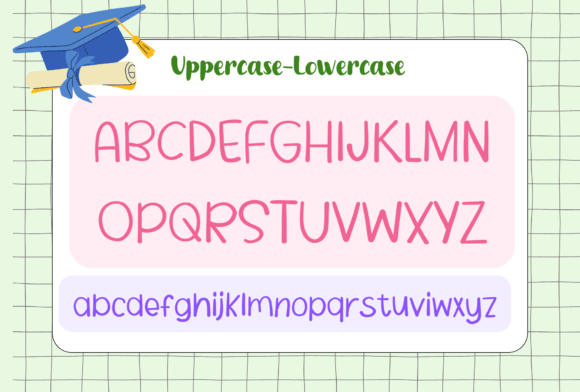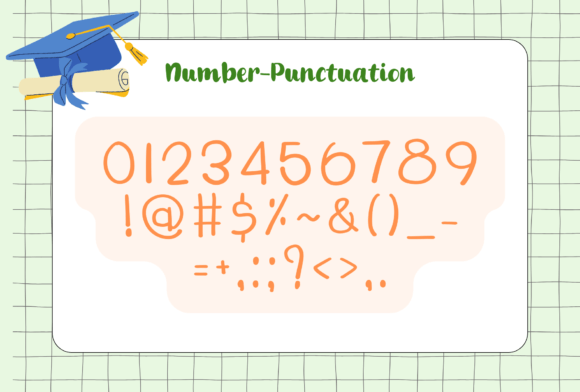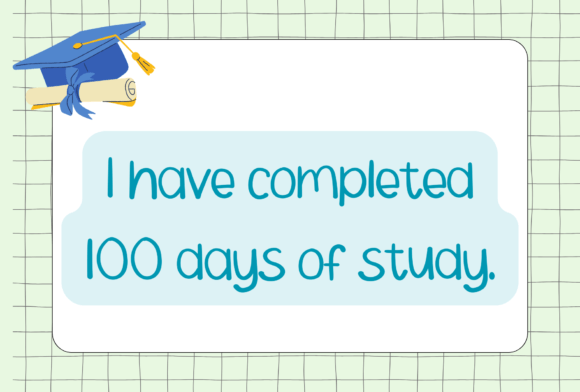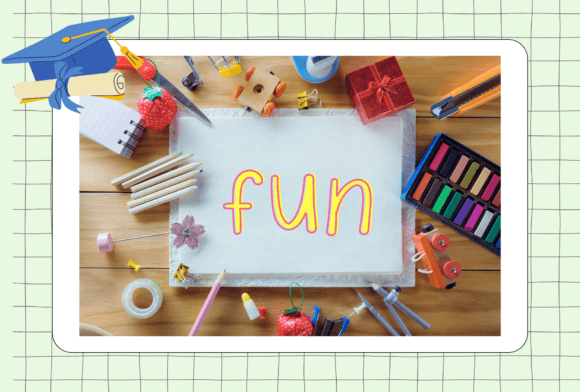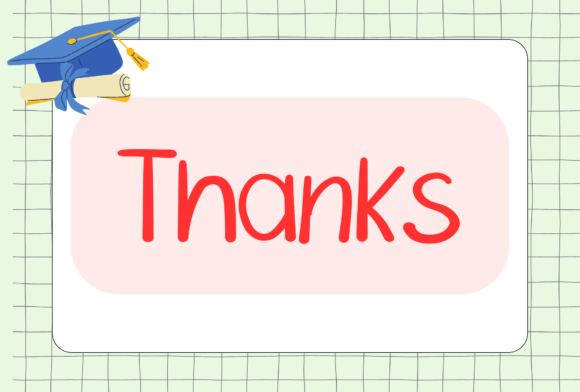
The 100 Days of School Font: A Designer’s Dream Come True
I’ll never forget the time I was working on a project for a client who needed a font that exuded modern elegance and sophistication. I had been searching for what felt like hours, but nothing seemed quite right. That was until I stumbled upon the 100 Days of School font. With its clean and fresh sans-serif design, I knew I had found the perfect fit. In this article, I’ll share my experience with this beautiful font, its features, and how to make the most of it in your designs.
A First Impression: What I Love About 100 Days of School Font
The 100 Days of School font is a stunning example of modern typography. Here are a few things that I love about it:
- ✨ Clean and Fresh Design: The font’s minimalist letterforms and contemporary aesthetic make it perfect for projects that require a sleek and refined appearance.
- ✅ Precision and Clarity: The font’s sans-serif design ensures that your text is easy to read, even at small sizes.
- 💡 Versatility: The font’s neutral design makes it suitable for a wide range of projects, from branding and advertising to packaging and digital media.
Honest Review: A Few Quirks to Consider
While the 100 Days of School font is an excellent choice for many projects, there are a few quirks to consider:
- 🤔 Limited Character Set: Some users have noted that the font’s character set is limited, which can make it difficult to use for projects that require a wide range of special characters.
- ⚠️ No Italic Version: Unfortunately, the font does not come with an italic version, which may be a drawback for some users.
The 100 Days of School font supports OpenType features, including glyphs and stylistic alternates. Here’s how to access these features in your designs:
The Story Behind 100 Days of School Font
The 100 Days of School font was designed with the goal of creating a clean and modern sans-serif font that would be perfect for a wide range of design projects. The font’s designer was inspired by the simplicity and elegance of modern typography and sought to create a font that would be both versatile and refined.
- Q: What type of projects is the 100 Days of School font best suited for?
- A: The 100 Days of School font is perfect for projects that require a clean and modern sans-serif font, such as branding, advertising, packaging, and digital media.
- Q: Does the 100 Days of School font support OpenType features?
- A: Yes, the 100 Days of School font supports OpenType features, including glyphs and stylistic alternates.
- Q: Is the 100 Days of School font available in multiple weights?
- A: Yes, the 100 Days of School font is available in multiple weights, making it perfect for a wide range of design projects.